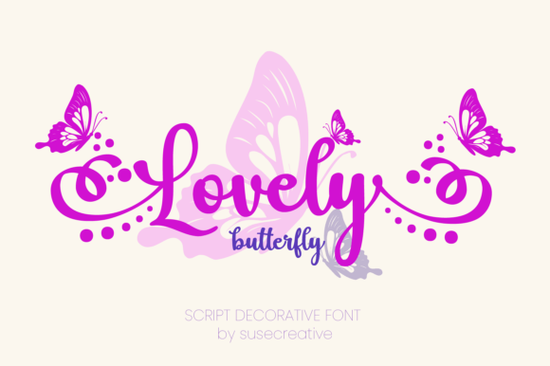
If you're working on a design that calls for soft elegance with a whimsical twist, the Lovely Butterfly Font might be exactly what you need. This decorative script font blends graceful letterforms with delicate butterfly motifs woven into its curves and swashes. It’s not just another pretty typeface it’s a thoughtfully crafted tool that adds personality to projects like wedding stationery, boutique branding, or handmade greeting cards.
What sets this font apart is how naturally the butterfly elements integrate into the script. Rather than feeling tacked on, they flow as part of the letter shapes, giving your text an organic, handcrafted charm. Whether you’re designing a logo for a floral shop or personalizing party invites, the font brings a feminine sophistication without veering into overly ornate territory.日晚间
When should you use a butterfly-themed script font?
Decorative fonts like Lovely Butterfly work best when your project benefits from visual storytelling. Think of occasions where emotion, beauty, or celebration are central:
- Wedding invitations and save-the-dates pair it with clean sans-serifs for contrast
- Branding for beauty, wellness, or lifestyle businesses especially those with nature-inspired values
- Custom gift tags, stickers, or packaging for small-batch products
- Print-on-demand items like mugs, tote bags, or journals targeting a romantic or dreamy aesthetic
It’s worth noting that highly decorative fonts aren’t ideal for body text or situations requiring high readability at small sizes. Save them for headlines, monograms, or accent phrases where their details can shine.
How does it compare to other decorative scripts?
The Lovely Butterfly Font stands out by embedding thematic elements directly into the letterforms. Where Coquette Bow leans playful and retro, and Wedding Day Monogram offers structured symmetry, Lovely Butterfly feels more organic and lyrical like calligraphy touched by spring.
Tips for using it effectively
To get the most out of this font without overwhelming your design:
- Use generous spacing. The swashes and butterfly details need room to breathe avoid tight kerning.
- Limit usage to one or two lines. A full paragraph in this style can become visually noisy.
- Pair it wisely. Combine with minimalist fonts (like thin sans-serifs) to create balance.
- Test print quality. Fine details may not reproduce well on low-resolution printers or cheap paper.
Who is this font really for?
While anyone can download and use Lovely Butterfly, it’s especially useful for:
- Small business owners creating branded packaging or social media graphics
- Stationery designers building invitation suites or custom monograms
- Print-on-demand sellers targeting niches like bridal showers, baby announcements, or garden-themed gifts
- Hobbyists making personalized cards or wall art for friends and family
If your audience responds to warmth, delicacy, and a hint of fantasy, this font can help convey that mood instantly without needing complex illustrations.
Before committing, preview the font with your actual wording. Sometimes a single problematic letter combo (like “fl” or “tt”) can disrupt the flow. Most Creative Fabrica listings include live previews or sample downloads to test compatibility.
Next step: If you’re ready to try it, download the Lovely Butterfly Font and experiment with a mockup maybe a faux wedding invite or a product label. Keep these checkpoints in mind:
- Is the message still readable at intended size?
- Do the butterfly details enhance or distract?
- Does it align with your brand’s voice (or your client’s)?